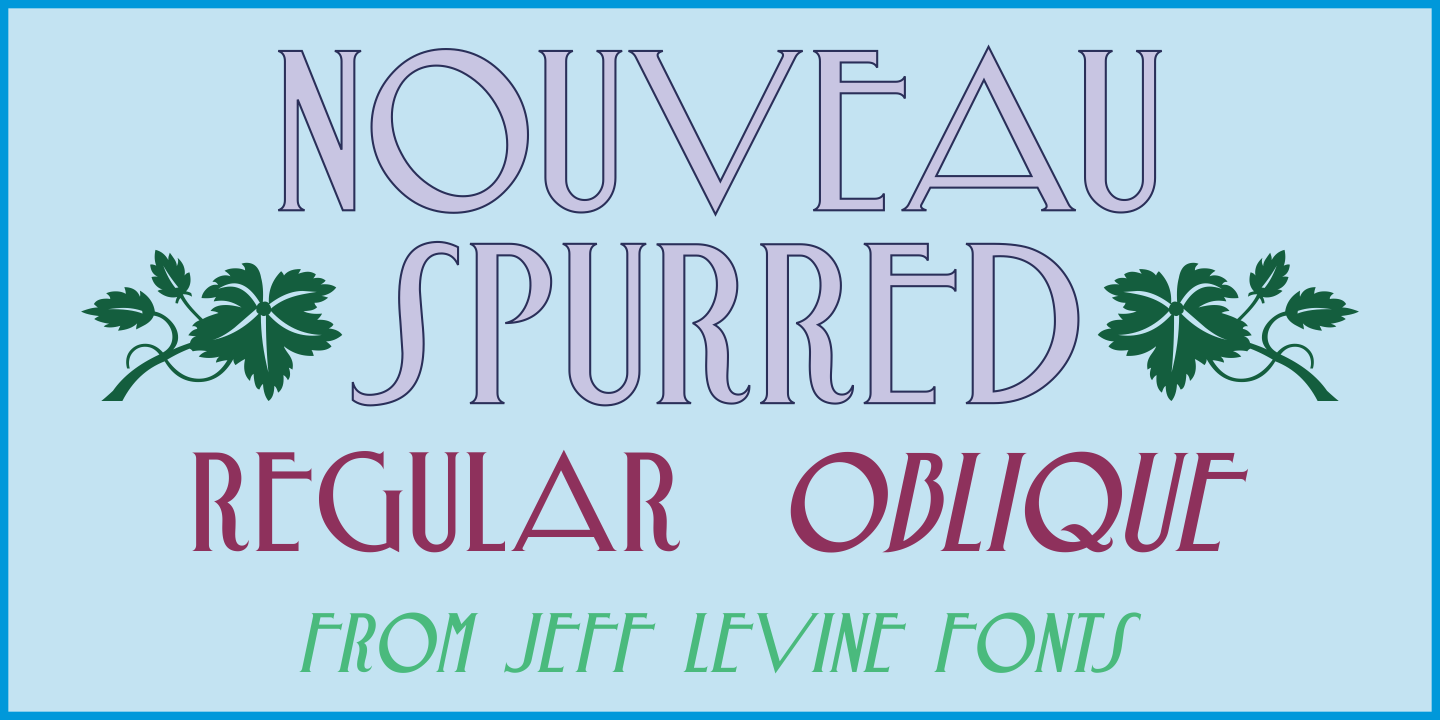
Nouveau Spurred JNL Font is an exceptional choice for projects that aim to capture the distinctive elegance and ornamental flair of the Art Nouveau era, combined with a unique "spurred" or notched characteristic. It's perfectly suited for vintage-inspired branding, historical event invitations, decorative posters, elegant signage, and any design where you want to evoke the sophisticated artistry of the late 19th and early 20th centuries. Imagine it gracing the marquee of a classic theatre, adding an authentic period feel to a historical exhibition, or giving a distinctive, handcrafted charm to a boutique's logo. Its elaborate details and stylized forms ensure your message is conveyed with both artistic beauty and an undeniable sense of nostalgic grandeur.
What makes Nouveau Spurred JNL Font so exciting is its faithful recreation of a beloved historical design movement, offering a unique blend of decorative flourish and legible structure. It captures the essence of a bygone era, allowing designers to infuse their work with a sense of refined artistry and intricate detail. This font isn't just about displaying text; it’s about creating an atmosphere, adding a layer of historical authenticity and artistic elegance to your visuals. It's the ideal tool for designers looking to infuse their work with a unique historical context or a strong, decorative appeal.
The Nouveau Spurred JNL Font family typically focuses on delivering its signature Art Nouveau-inspired style with precision. You might find a standard Regular weight that embodies its core decorative design, along with potential variations that enhance its ornamental appearance or offer slight stylistic alterations for specific characters. These nuances ensure that Nouveau Spurred JNL Font Free Download can be the cornerstone of a truly unique and powerfully thematic visual identity, helping your designs stand out with an undeniable sense of character and artistic heritage.